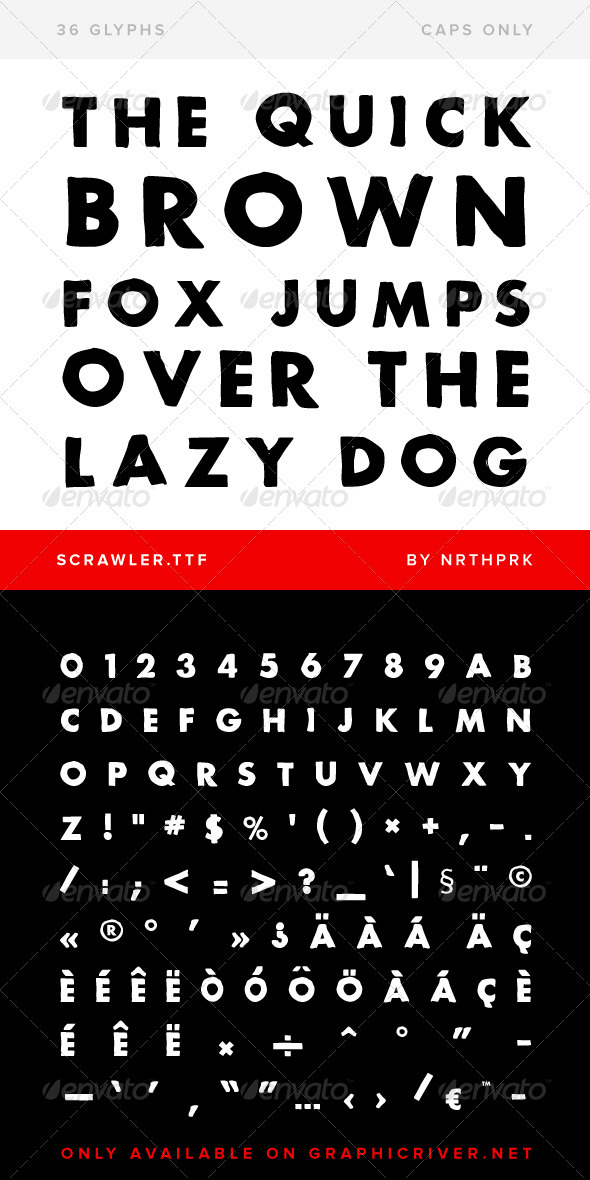
Scrawler handmade font contain caps letters and numbers, in bold style :
The font is based on geometric sans-serif typeface Futura. File includes TrueType file formats, as well as installation instructions.